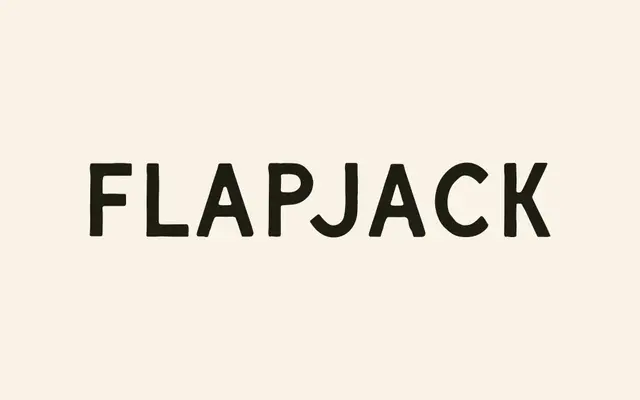
Flapjack
Flapjack specimen from Taylor Penton
A hand-lettered display face drawn from 1920s billboard and shop sign lettering, suited to logos, packaging and vintage-styled branding.
Each letter was drawn by hand, referencing the informal lettering found on old shop signs and painted billboards from the 1920s. The single Regular weight ships as OTF, WOFF and WOFF2, with basic Latin coverage and a limited set of accented characters across 149 glyphs. It suits work that calls for nostalgic warmth without the rigidity of a revived period typeface.
A hand-drawn display face modelled on 1920s billboard and shop sign lettering, placing it firmly in the display category with a vintage vernacular subcategory.